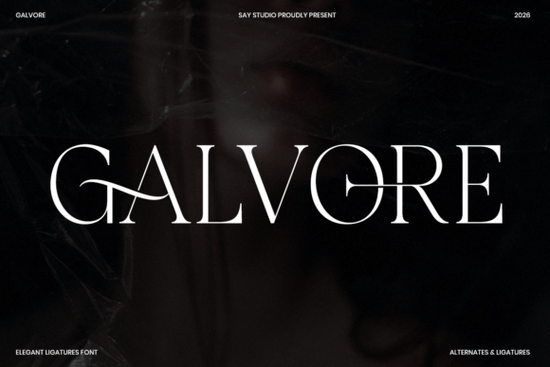
If you're looking for a serif font that brings elegance and refinement to your designs, Galvore Font is worth exploring. It’s designed with luxury in mind perfect for high-end branding, fashion editorials, or any project where a polished, timeless look matters. Whether you’re creating a boutique logo, a magazine cover, or wedding invitations, this typeface adds a touch of sophistication without feeling outdated.
What makes Galvore Font stand out?
Unlike many generic serif fonts, Galvore was built with attention to detail. Its graceful proportions and subtle contrast between thick and thin strokes give it a balanced, refined appearance. The ligatures are carefully crafted especially useful when setting longer text or headlines where flow and harmony matter. You’ll notice the difference in how the letters connect, giving your design a more intentional, hand-crafted feel.
The font draws inspiration from modern fashion magazines and luxury packaging. Think of sleek editorial layouts, jewelry brand identities, or premium product labels. It works especially well when you want typography to be part of the visual story not just readable, but memorable.
Where can you use Galvore Font?
It’s versatile enough for several creative uses:
- Logo design: Ideal for boutique brands, beauty studios, or fashion labels wanting a classic yet fresh identity.
- Wedding stationery: Perfect for save-the-dates, invitations, or menus with a refined aesthetic.
- Editorial layouts: Great for digital or print magazines focused on lifestyle, fashion, or art.
- Print-on-demand products: Works beautifully on mugs, posters, tote bags, and greeting cards with a premium vibe.
- Advertising and campaigns: Adds credibility and style to high-end product launches or seasonal promotions.
You’ll find that Galvore fits naturally into projects where subtlety and quality matter. It doesn’t shout it commands attention through its presence, not volume.
How does it compare to similar fonts?
If you’ve used other serif display fonts like Montrielle or Veloster, you’ll appreciate how Galvore strikes a balance between strength and delicacy. While Montrielle leans toward bold, dramatic statements, and Veloster offers a slightly more structured feel, Galvore sits in the middle refined, expressive, and adaptable.
For example, if you’re designing a luxury skincare line, Galvore’s soft curves and elegant alternates can help convey care and craftsmanship. On the other hand, if you’re working on a minimalist fashion campaign, its clean lines still hold up without overwhelming the rest of the layout.
Check out Montrielle Font for something more dramatic, or Veloster Font if you prefer a tighter, more architectural style. But for a go-to choice that feels both classic and current, Galvore fits well in your toolkit.
Why designers choose Galvore
Many creatives turn to Galvore because it’s not just about looks it’s about usability. The font includes multiple alternates and stylistic sets, so you can customize each piece to suit your vision. No two uses need to look exactly the same, which helps keep your work fresh across different projects.
It also performs well at various sizes. Whether you’re scaling it down for a small label or blowing it up for a poster, the details remain crisp and legible. That reliability makes it a solid choice for both digital and print applications.
Looking for a real-world example? Try pairing Galvore with a simple sans-serif for contrast like using it for headings while keeping body text clean. This combo creates visual rhythm and keeps the focus where it should be: on the message and the mood.
Final thoughts
Galvore Font isn’t trying to do everything. It’s focused on one thing: delivering a luxurious, timeless feel through thoughtful design. If your goal is to create work that feels elevated and intentional, this font supports that mission.
Whether you're a small business owner, a hobbyist crafting personalized gifts, or a designer building brand identities, Galvore gives you a tool that’s both beautiful and practical.